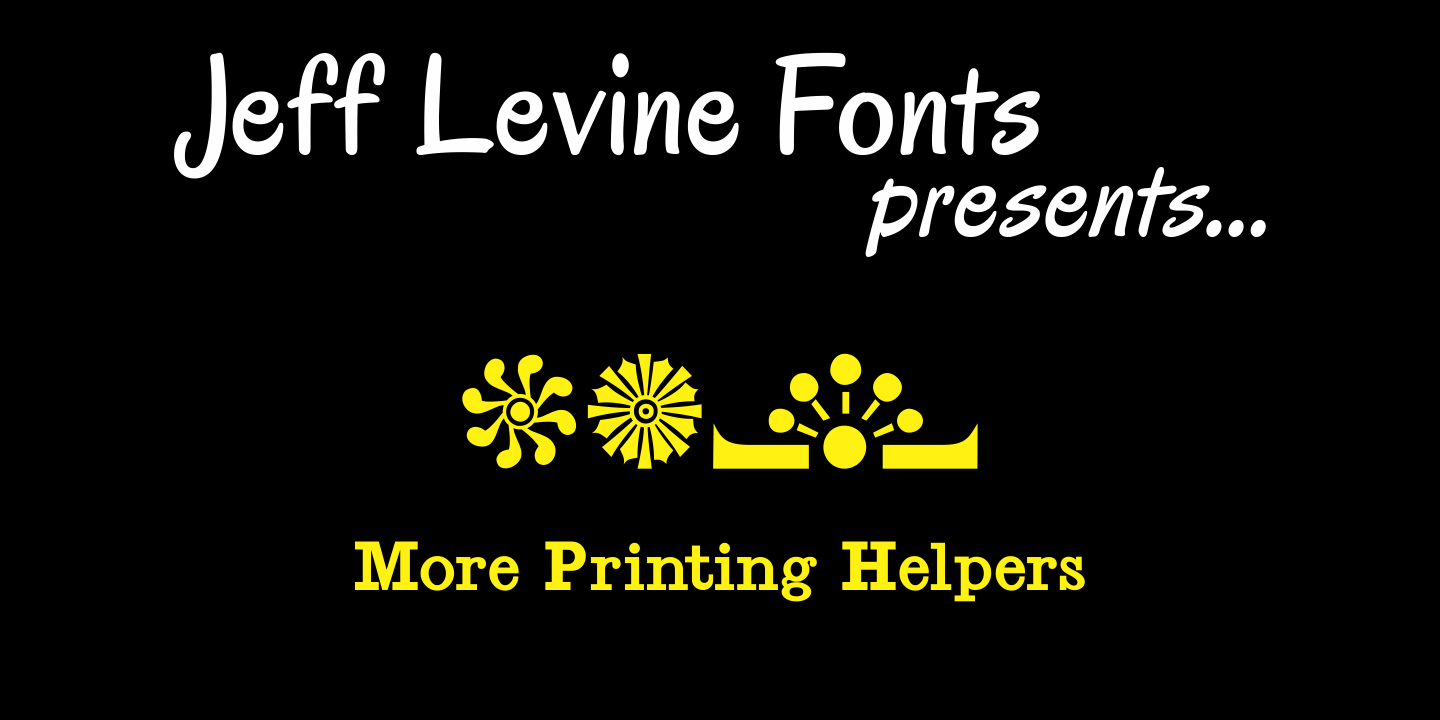
More Printing Helpers
More Printing Helpers JNL gathers another assortment of vintage printing embellishments and ornaments from the late 1800s. Within the standard twenty-six alphabet keys are pointing hands, corner pieces, border elements and decorative center and end pieces. On the lower case, certain elements hav been flipped or inverted for matching effects.
Some additional positions are available on the 1 through 9 keys and on the colon and semicolon. A bonus to this font: three expandable panels. the second (with decorative end caps) is attained by typing the left parenthesis for the left side, the hyphen for the center lines and the right parenthesis for the right side. The other feature.
ribbon ends, and the combination of the less than-equal-greater than keys creates this panel. The third can be made by typing the left brace/vertical bar/right brace keys.